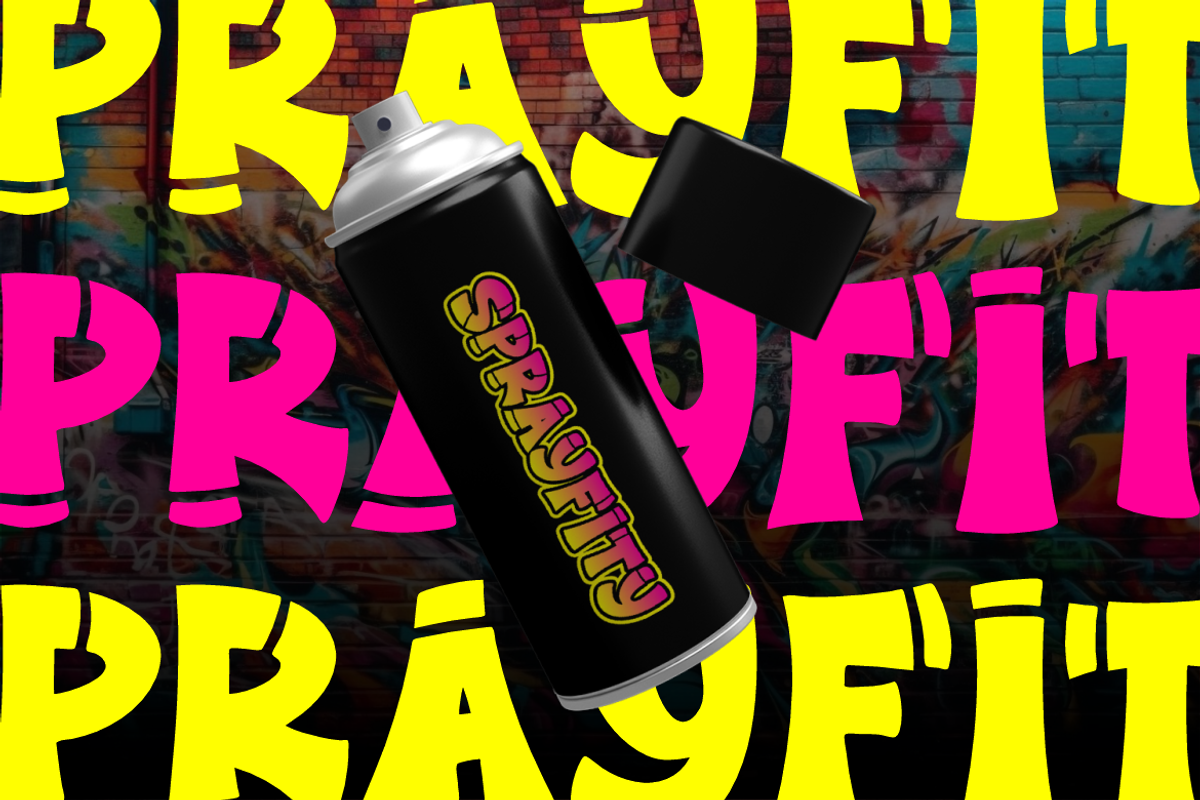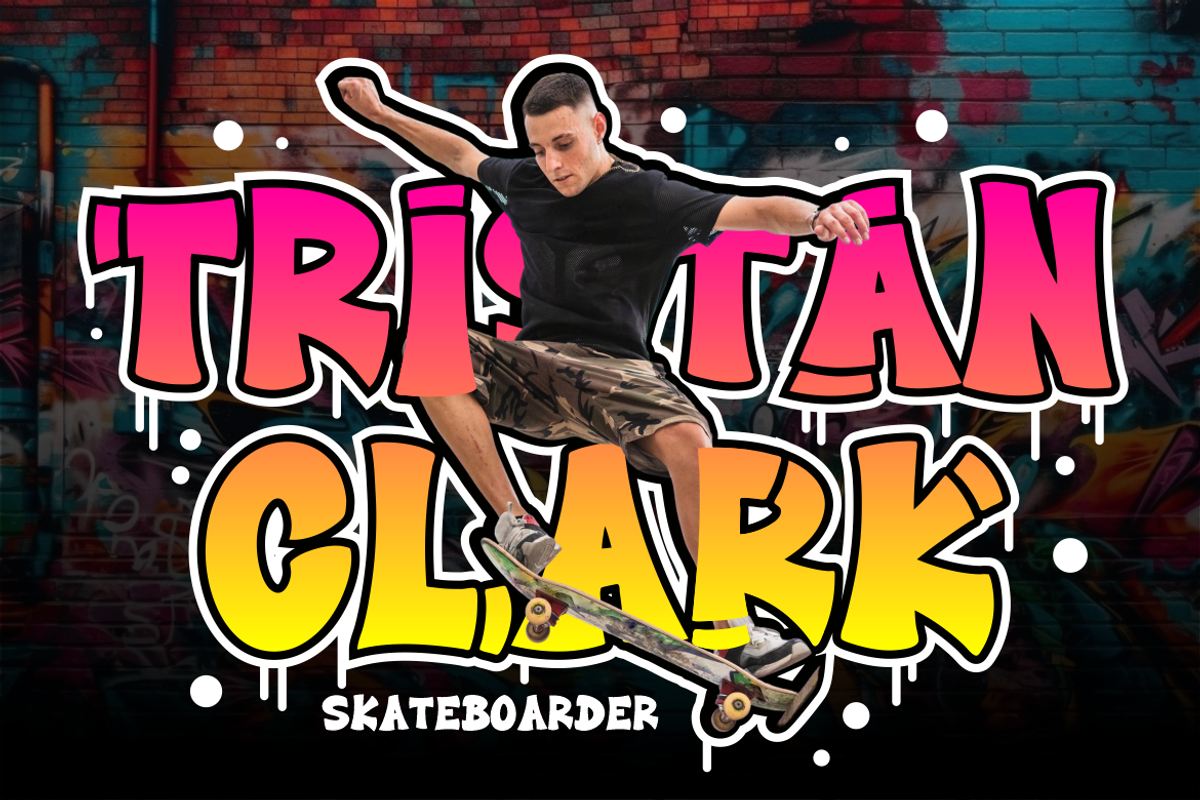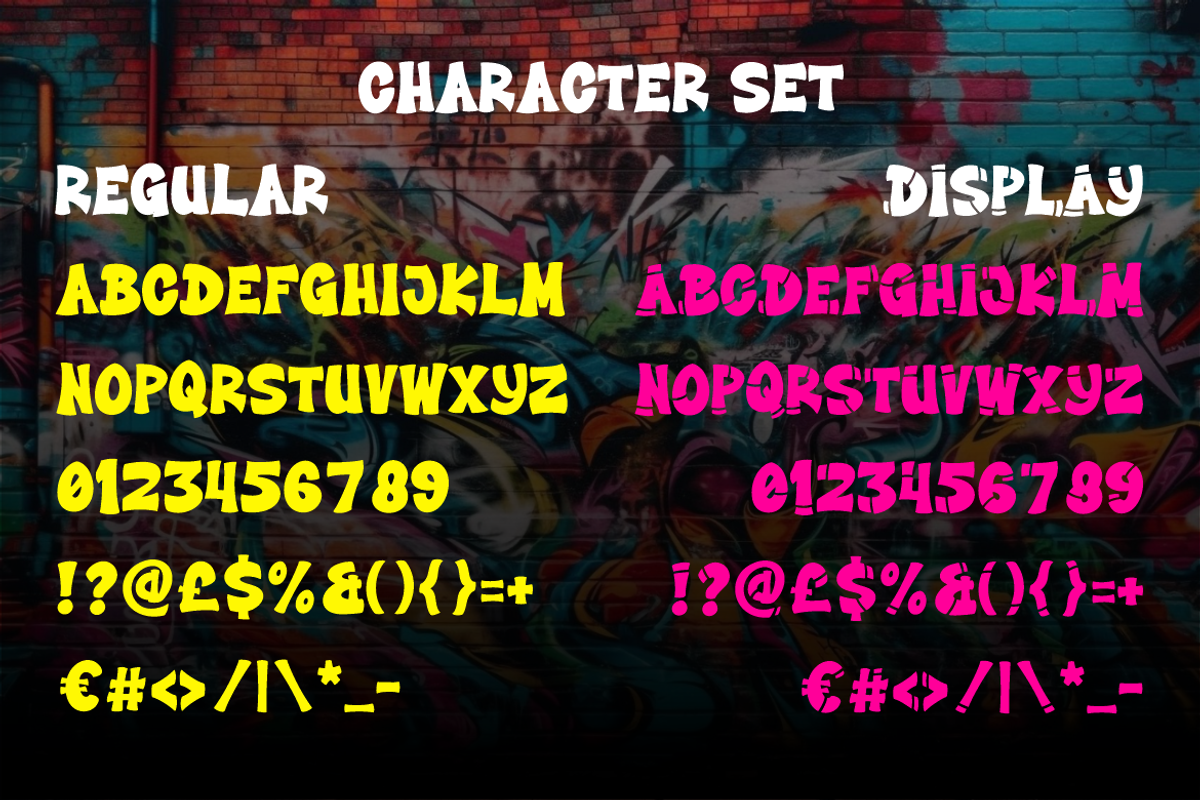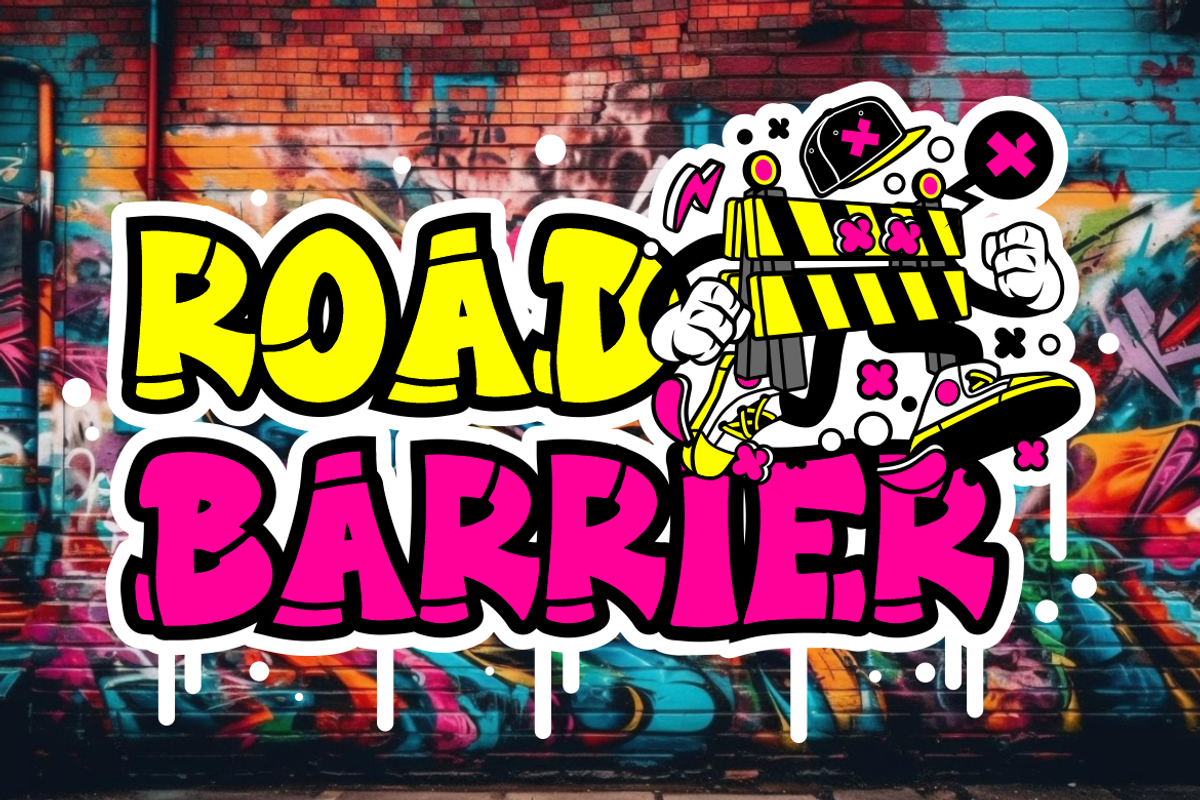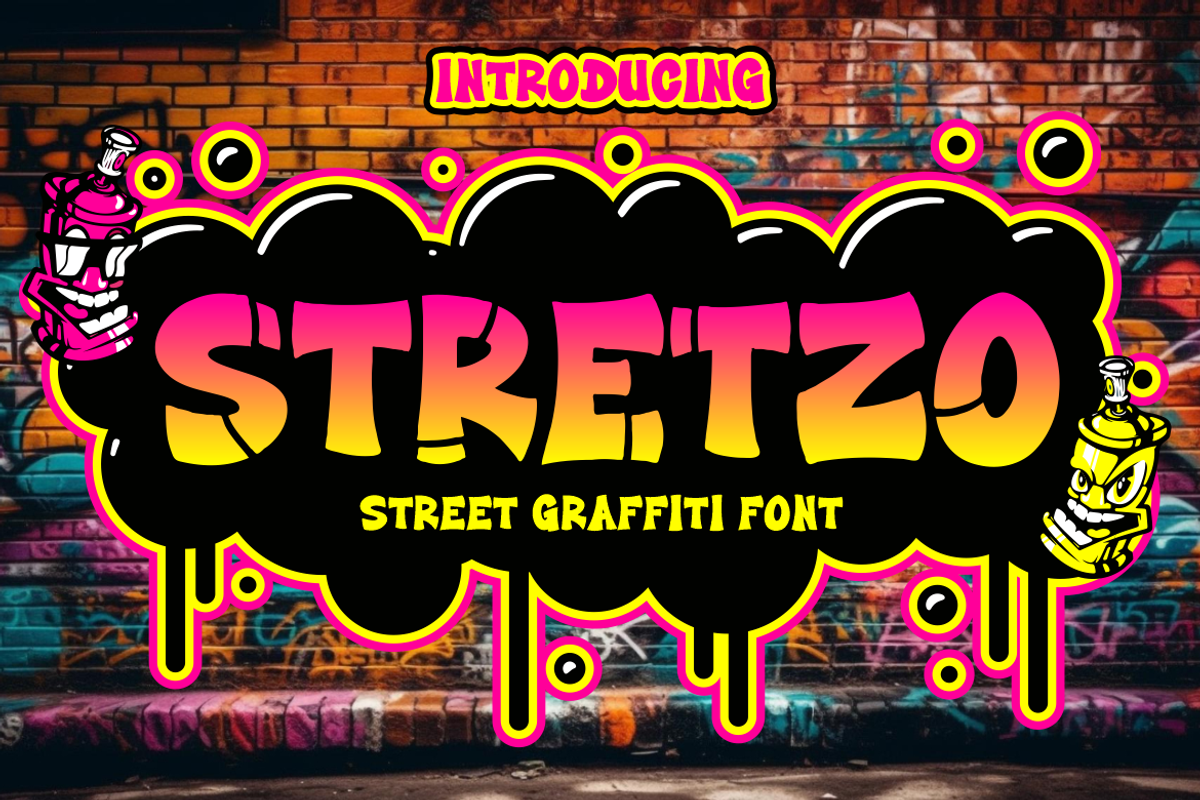
Stretzo Graffiti Font
Stretzo Graffiti Font is a bold and energetic typeface that captures the true essence of street culture. With thick strokes, curved edges, and playful cuts, this font reflects the raw character of spray-painted graffiti found on urban walls. Each letter feels hand-drawn, giving designs an authentic street vibe with a professional polish. The font shape enhance its dynamic look, making it highly versatile for posters, skateboard and branding. Its striking presence ensures that every word stands out, demanding attention while still feeling stylish and modern.
This font is perfect for projects that need an urban, rebellious edge. From music album covers and event posters to clothing brands and creative packaging, Stretzo Graffiti Font adapts seamlessly. It works beautifully for bold headlines, logo designs, and eye-catching advertisements. With its youthful energy and raw texture, the font becomes an essential tool for designers aiming to capture the punk, hip-hop, and street-inspired aesthetic. Whether you’re working on stickers, book covers, or magazine titles, Stretzo Graffiti Font delivers maximum impact and cultural